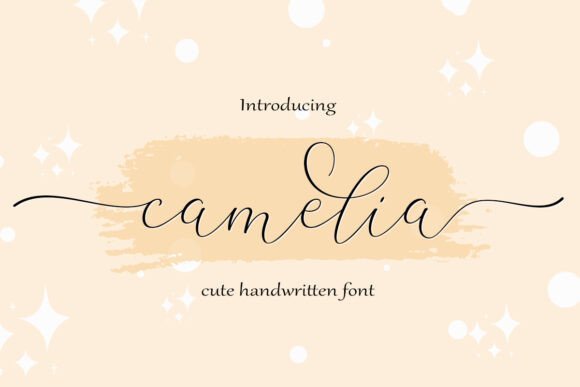
Where Words Meet Artistry
Have you ever found yourself lost in a sea of blank paper, trying to find the perfect font to capture the essence of your heartfelt message? Perhaps it’s a wedding invitation, a thank you note, or a festive greeting – whatever it is, the right font can make all the difference. For designers and creatives, the quest for the perfect font can be a daunting task. But what if we told you that your search is over? Introducing the Camelia Font, a masterpiece of elegance and sophistication that will elevate your designs to new heights.
This exquisite font is not just a tool, but an extension of your artistic vision. With its classic charm and handwritten touch, the Camelia Font is perfect for adding a personal touch to your logos, business cards, and more. And with PUA encoding, all glyphs and alternates are readily accessible, making your design experience seamless and enjoyable.
Camelia Font Key Features
- Unique Characteristics: Camelia Font is a elegant script font with a whimsical touch, perfect for creating a romantic or vintage atmosphere in designs
- Character Set: Supports Latin, Cyrillic, and Greek alphabets, as well as a range of punctuation and symbol characters
Designer Review: Camelia Font
Overall, I think Camelia Font is a lovely, elegant choice for those seeking a classic feel. Here are some of its strong points:
- ✨ The font is highly legible, making it perfect for body text.
- ✨ It has a beautiful, refined aesthetic that works well in a variety of contexts, from formal invitations to modern branding.
- ✨ Camelia Font supports a wide range of languages, making it a great option for multilingual projects.
However, I do have a few reservations:
- ⚠️ The font may be too formal for some projects, potentially limiting its creative possibilities.
- ⚠️ Some users may find the font’s lines too smooth, which can make it difficult to distinguish from other similar fonts.
- ⚠️ While the font is highly legible, it may not be the best choice for headings, as it can get lost in bold weights.
Overall, I think Camelia Font is a solid choice for designers seeking a classic, elegant look. While it may have some limitations, its strengths far outweigh its weaknesses. With the right use case, Camelia Font can be a beautiful addition to any design project.
Tips for Getting the Most Out of Camelia Font
For optimal results, use Camelia Font in conjunction with other elegant and minimalist design elements. Experiment with different font sizes, colors, and styles to achieve the desired effect.
Camelia Font is ideal for creating elegant and sophisticated designs, such as:
- Business cards and branding materials
- Editorial and magazine layouts
Alternatives to Camelia Font for Designers
Great Vibes is a beautiful, elegant script font ideal for creating a sophisticated and luxurious look. It features connected letters and swashes, making it perfect for headings and titles. When to use: Use Great Vibes for high-end branding, wedding invitations, or any design that requires a touch of sophistication. Compared to Camelia Font, Great Vibes has a more refined and polished look, while Camelia Font has a more playful and whimsical feel.
Carolyna Pro is a modern script font with a touch of elegance and sophistication. It features a wide range of styles, from casual to formal, making it perfect for various design applications. When to use: Use Carolyna Pro for fashion branding, product packaging, or any design that requires a modern and stylish look. Compared to Camelia Font, Carolyna Pro has a more streamlined and contemporary feel, while Camelia Font has a more vintage and romantic look.